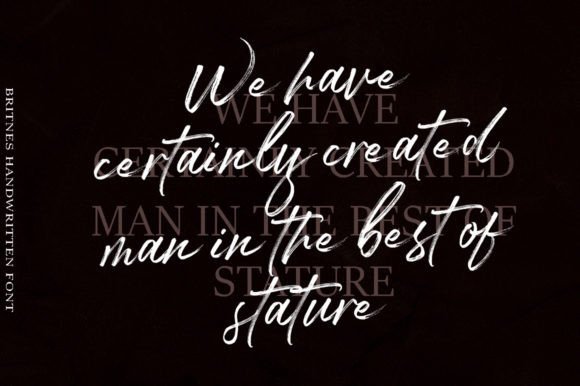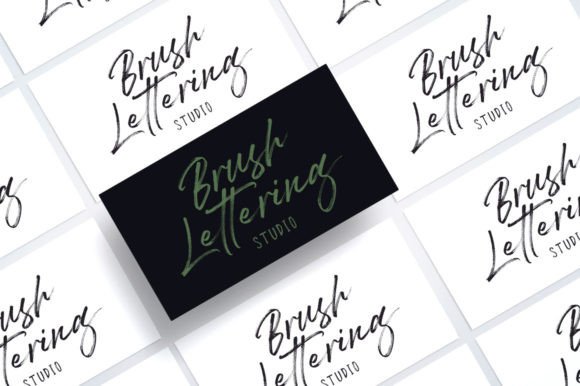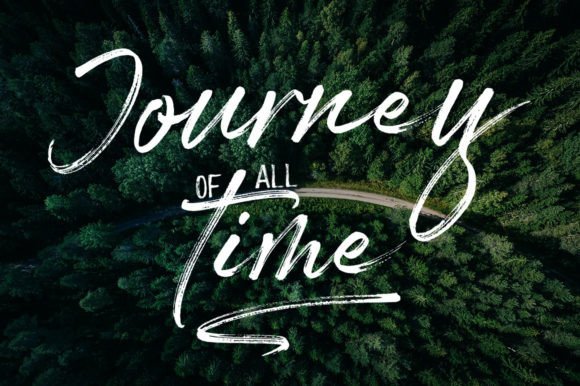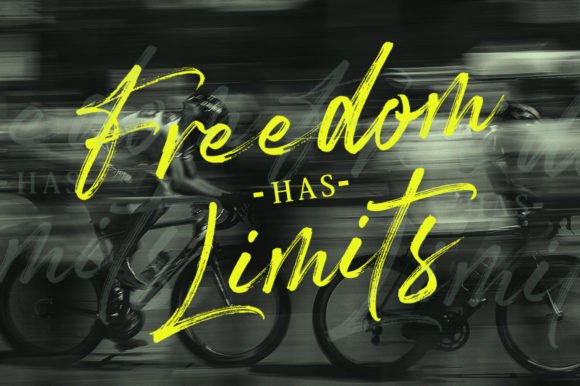
The Designer’s Dream Font: A Deep Dive into Britnes
I’ll never forget the moment I stumbled upon the perfect font for a client’s wedding invitation project. I had been searching for what felt like an eternity, trying out font after font, but nothing seemed quite right. That was until I discovered Britnes, an exquisite handwritten brush font that instantly captured my heart. In this article, I’ll share my love for Britnes, its features, and how to make the most of it in your designs.
My Love Affair with Britnes
Britnes is more than just a font – it’s a design statement. With its classy calligraphic influences and contemporary feel, it’s the perfect blend of elegance and freshness. Here are just a few things I love about Britnes:
• ✨ Exquisite handwritten brush strokes that give it a personal touch
• 💫 Beautifully crafted to evoke a sense of luxury and sophistication
• 🎨 Versatile and adaptable to various design projects, from wedding invites to branding
A Few Quirks to Consider
While Britnes is an amazing font, it’s not without its limitations. Here are a few things to keep in mind:
• 🤔 Some characters may require manual kerning for optimal spacing
• ⚠️ May not be suitable for very large or very small text sizes due to its handwritten nature
3. Experiment with OpenType features like ligatures and stylistic alternates to add personality to your text.
The Story Behind Britnes
Britnes was designed with the intention of capturing the elegance of traditional calligraphy while infusing it with a modern, fresh twist. The designer aimed to create a font that would be both classy and approachable, suitable for a variety of creative projects.
Font Name Britnes Font
Author Suza Studio
What makes Britnes unique? Britnes stands out due to its exquisite handwritten brush strokes, combining classy calligraphic influences with a contemporary feel.
Does Britnes support OpenType features? Yes, Britnes supports OpenType features, including ligatures and stylistic alternates, allowing for greater typographic control.
Is Britnes suitable for body text? While Britnes is highly legible, its handwritten nature makes it more suited for headings and titles. For body text, a more traditional font might be more appropriate.